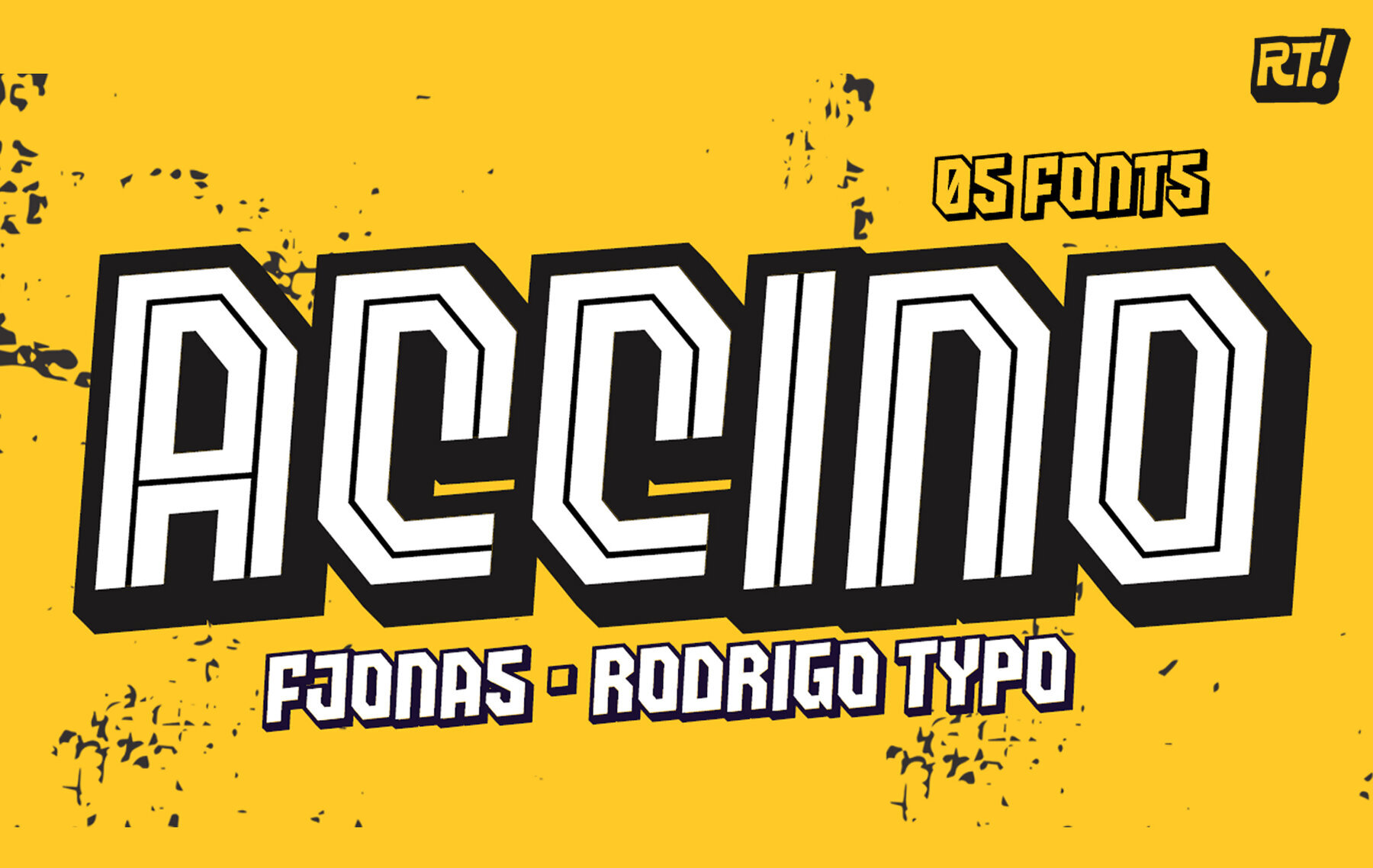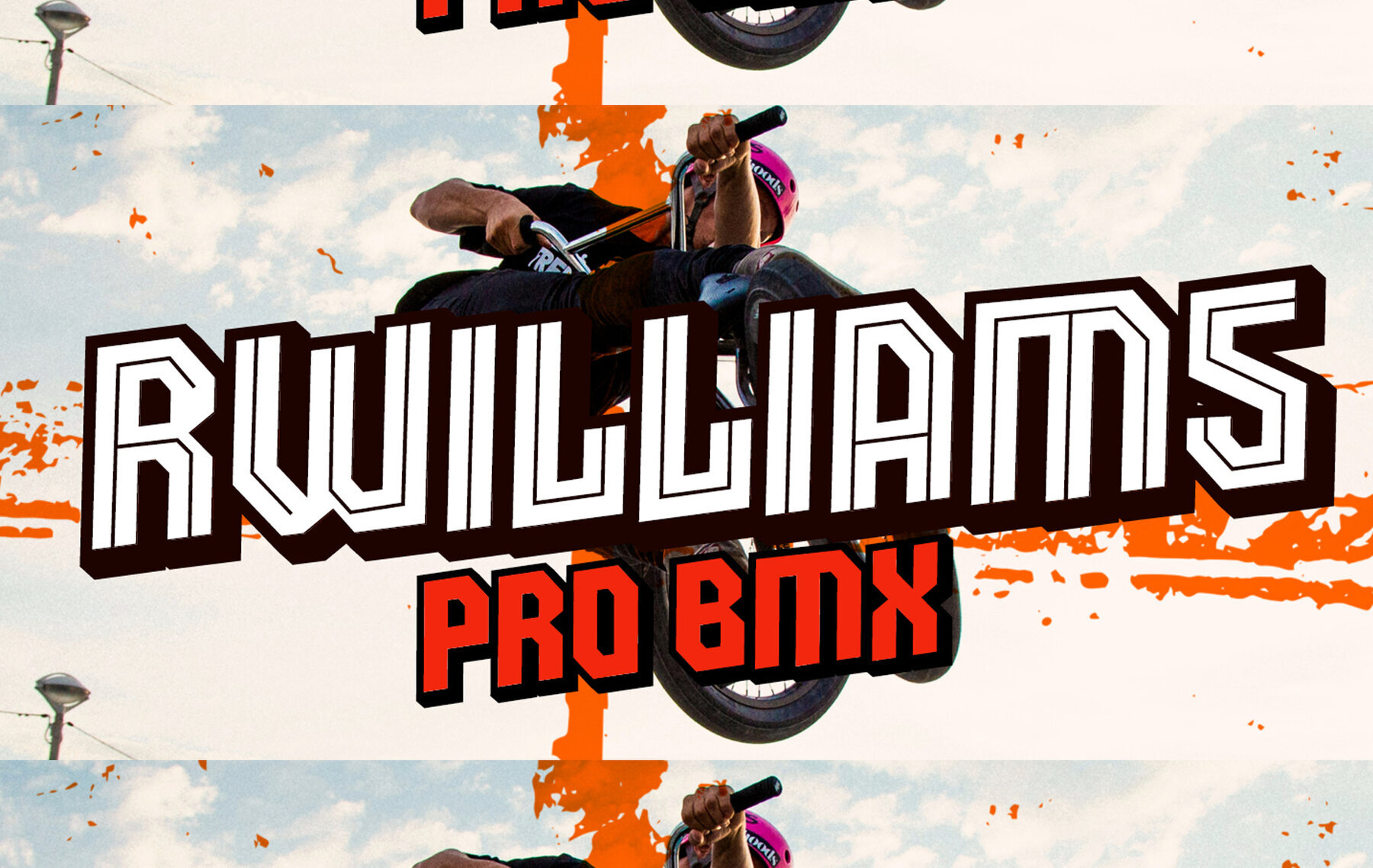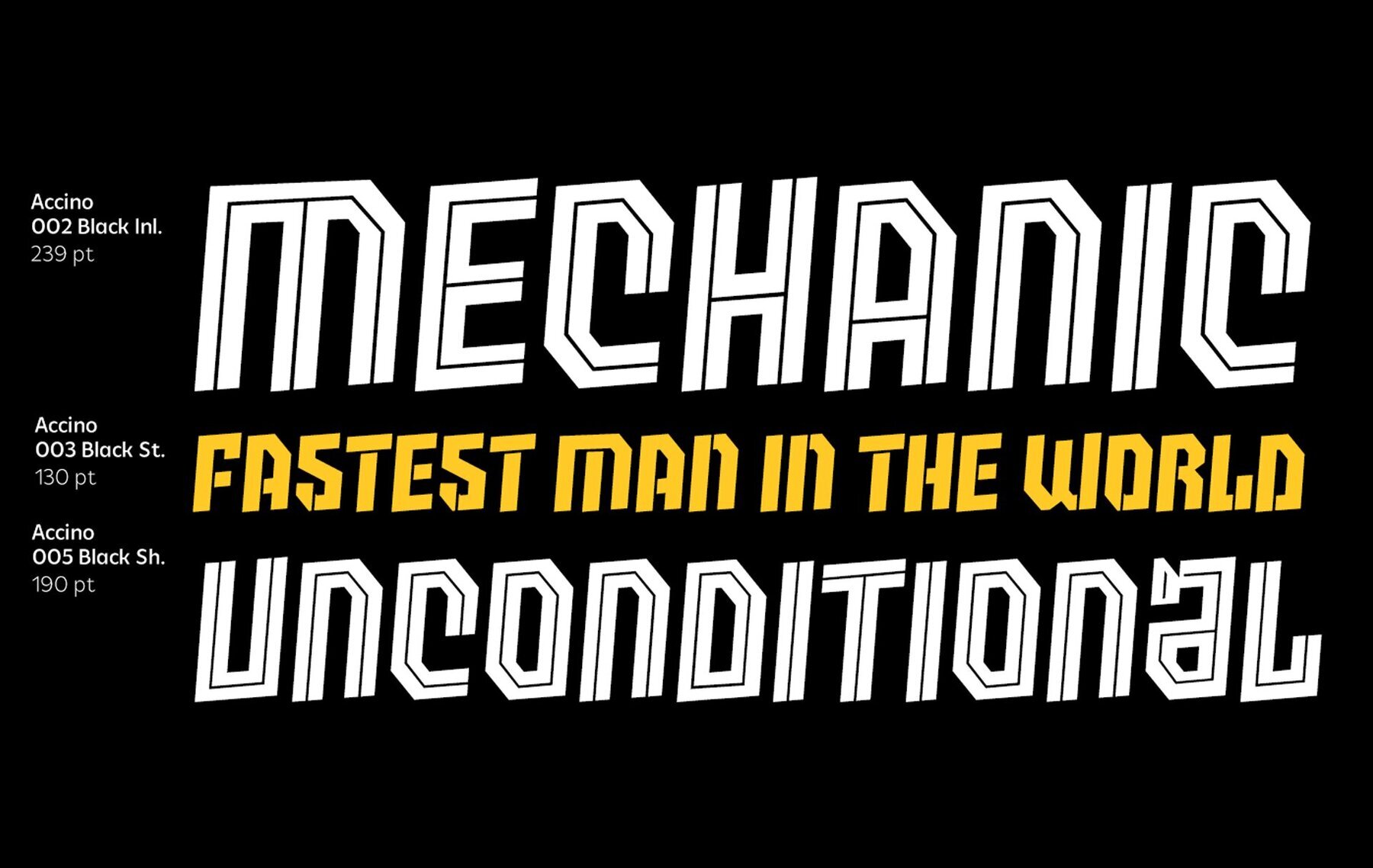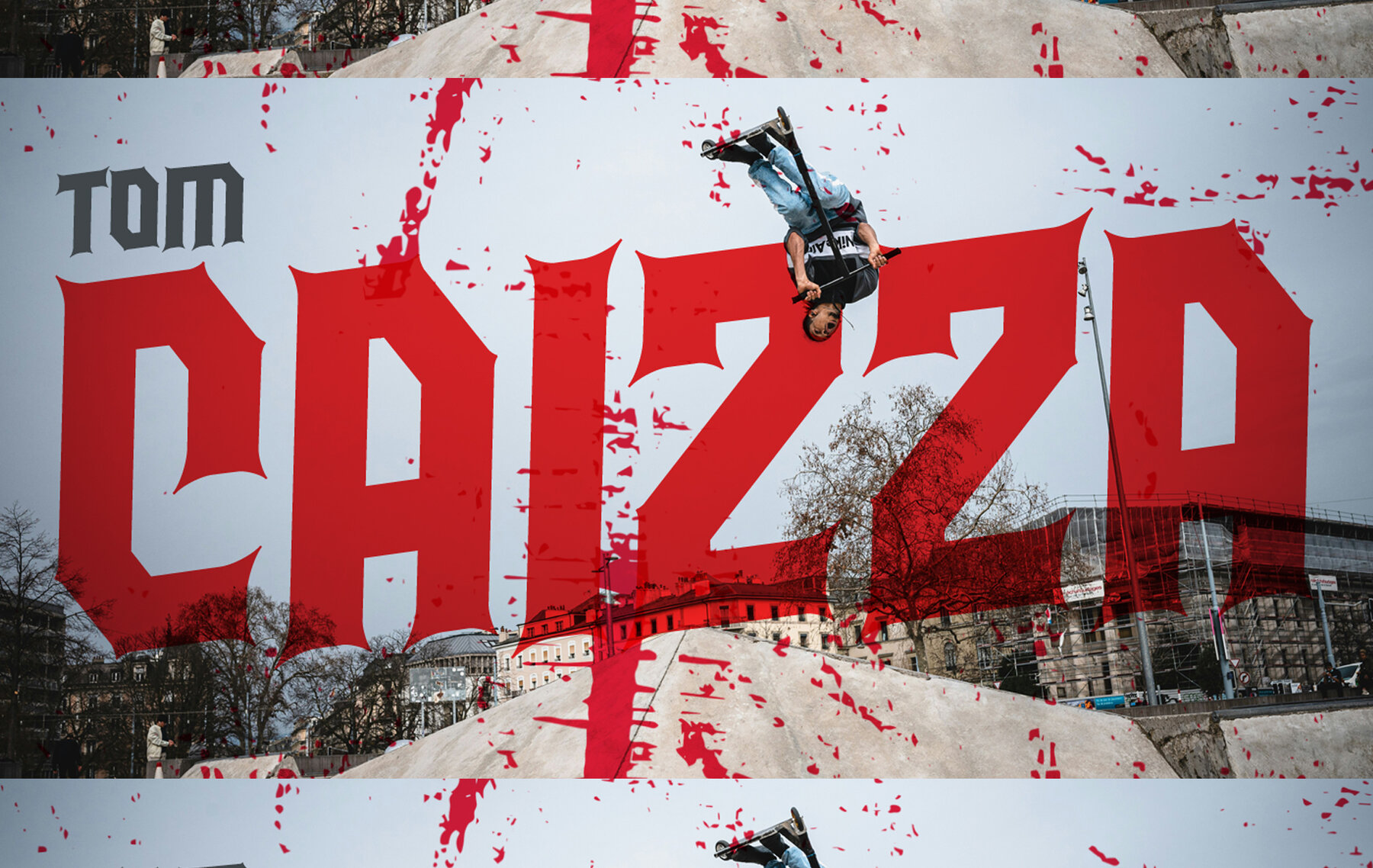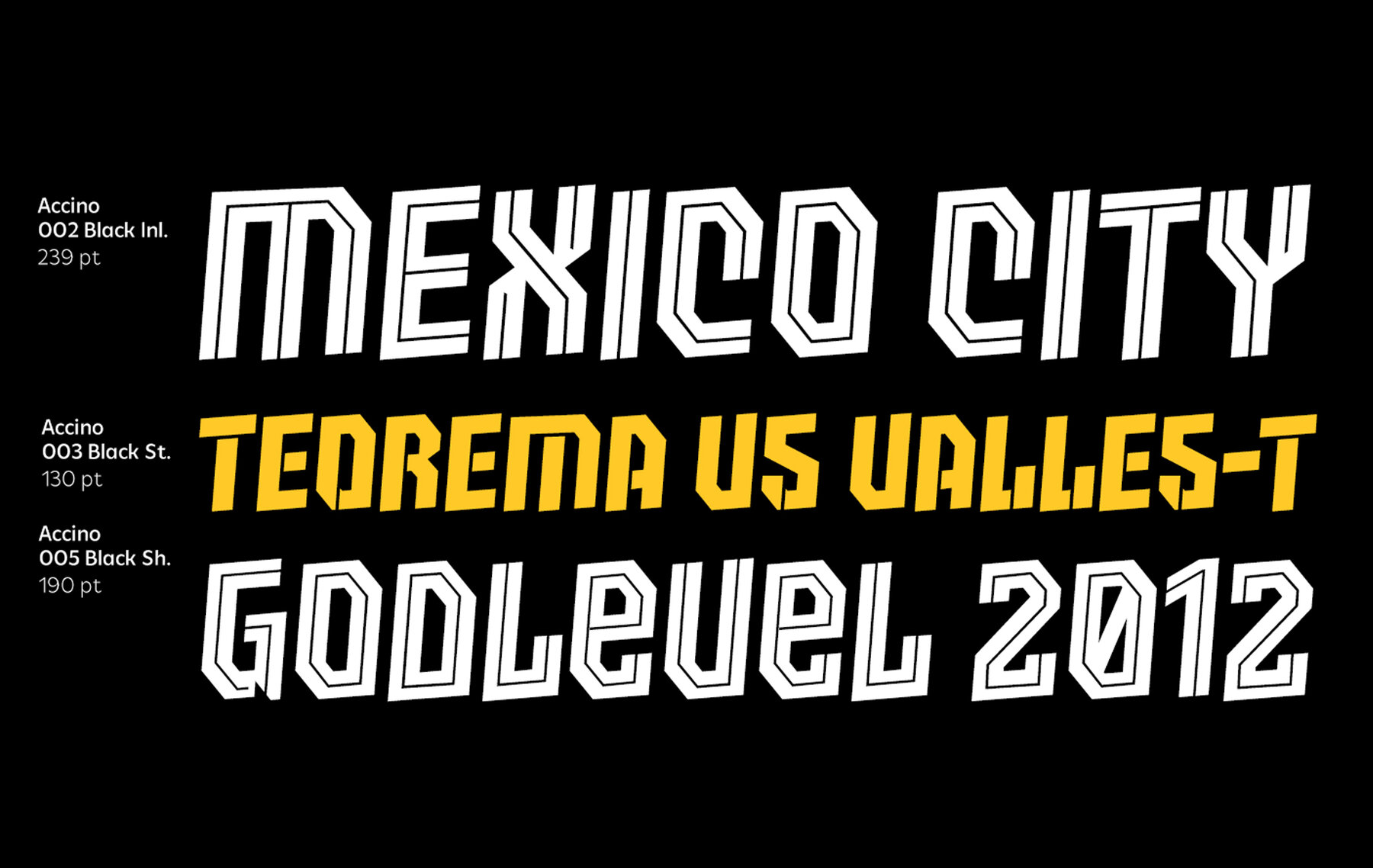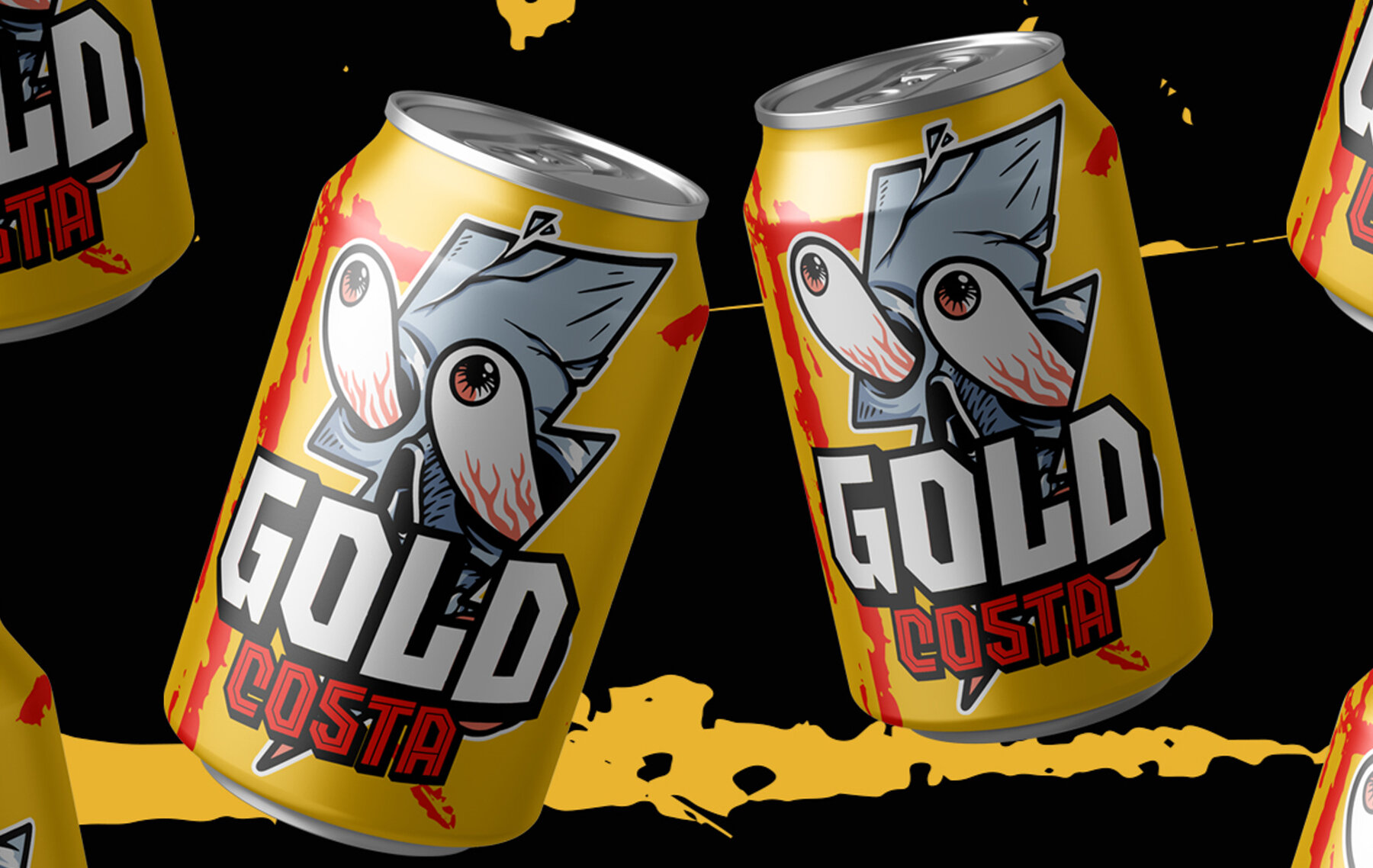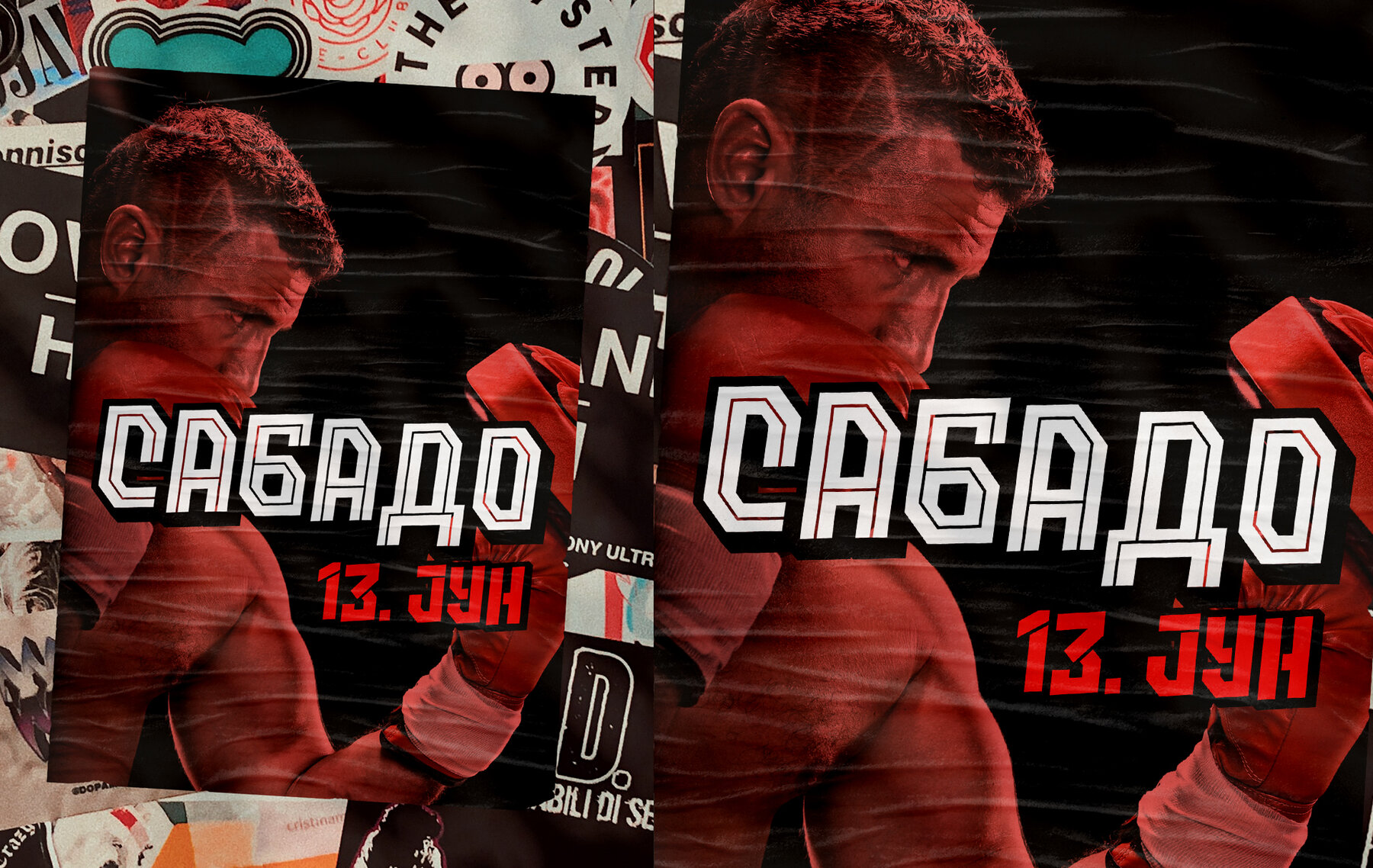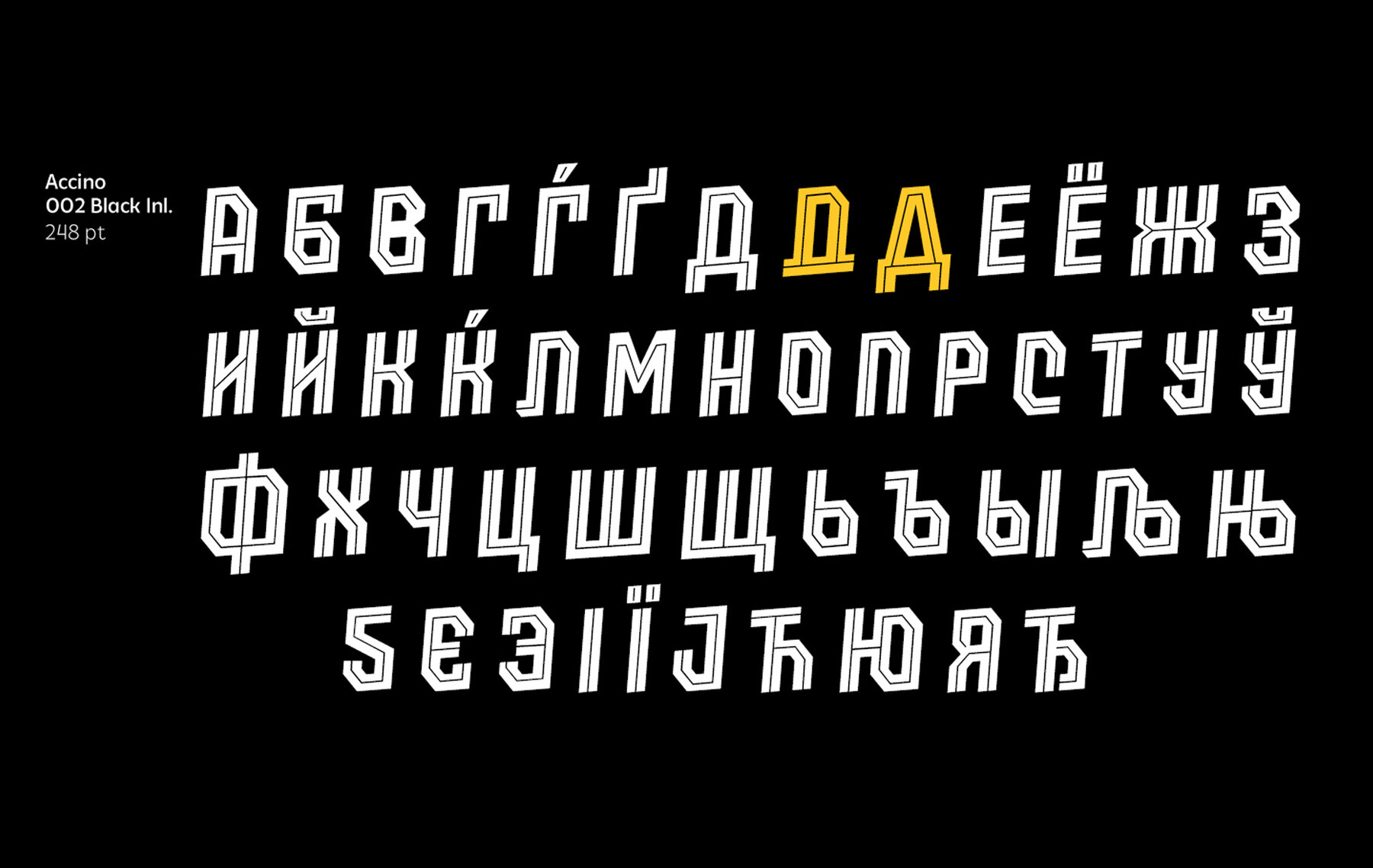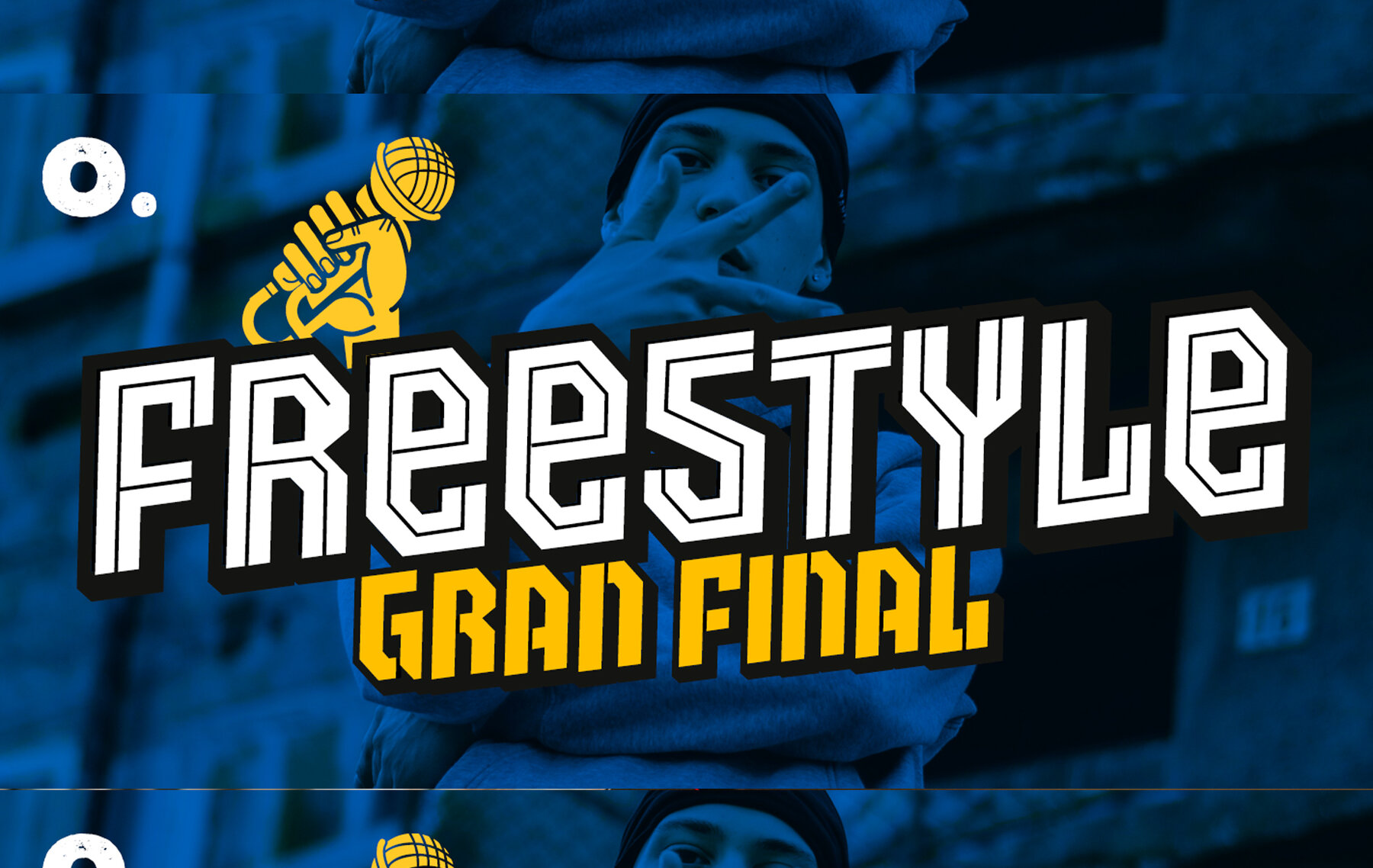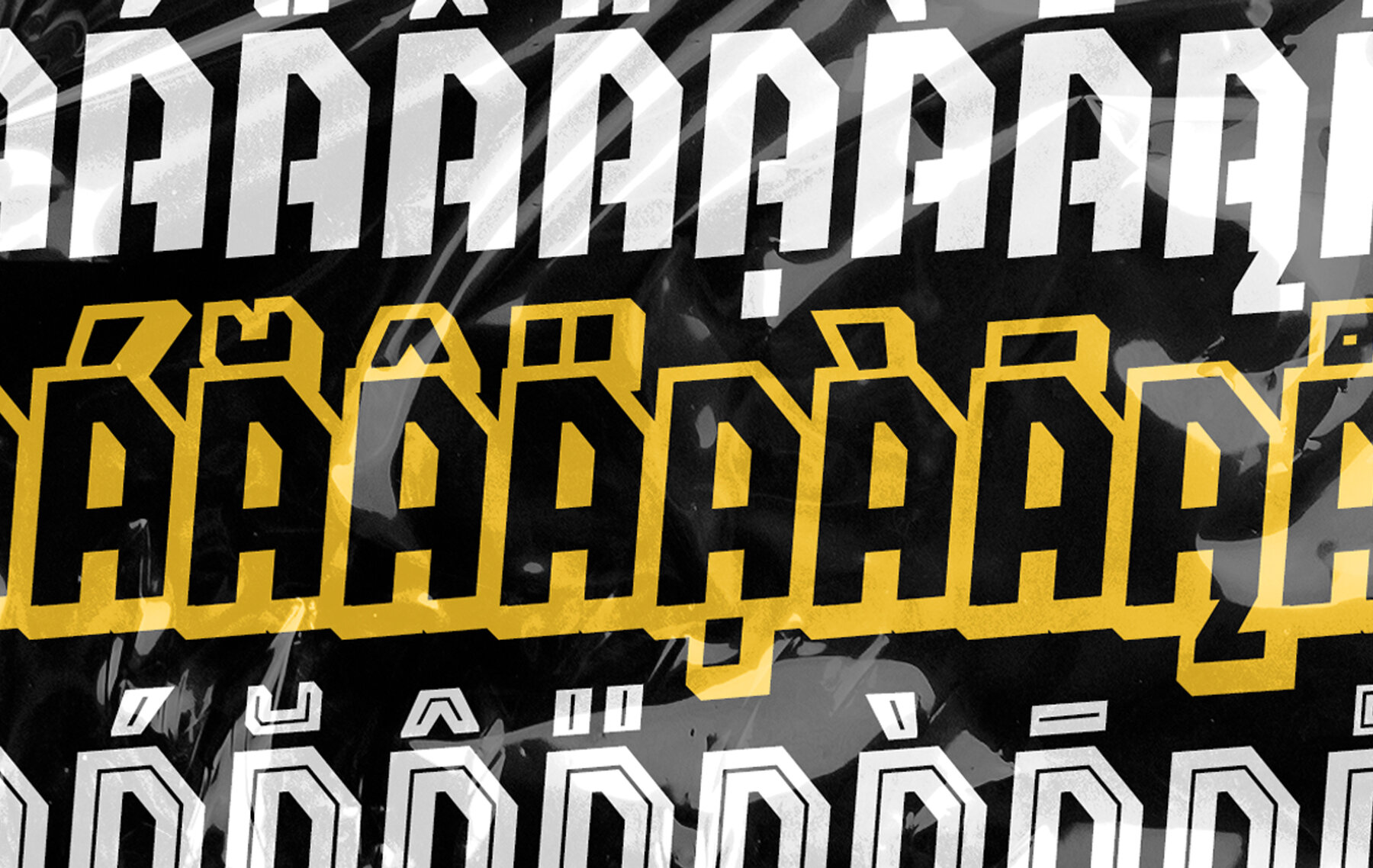
Accino Font
Accino 001 Black
Accino 002 Black Inline
Accino 003 Black Stencil
Accino 004 Black Sharp
Accino 005 Black Shadow
This bold, geometric display font demands attention with its heavy, condensed letterforms, making it perfect for impactful headlines and commanding posters. Ideal for projects that require a strong visual presence, this font adds a modernist edge to graphic design endeavors, ensuring bold statements cannot be missed.